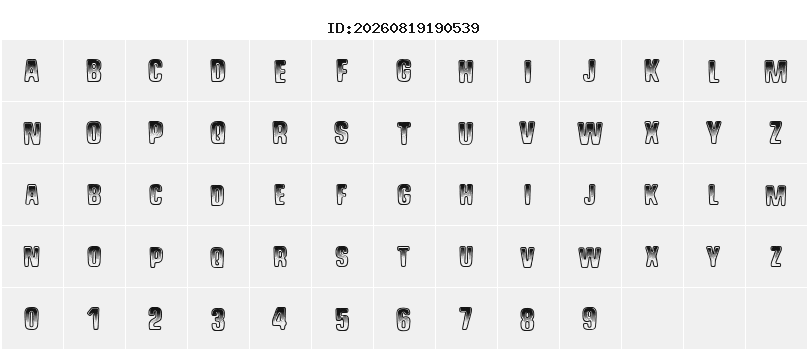
Shock Shimmy Preview
• Font Name: Shock Shimmy
• Font ID: S.JohnRoss: Shock Shimmy: 2011
• Full Font Name: Shock Shimmy
• PostScript Name: ShockShimmy
• Designer: S. John Ross
• Manufacturer: S. John Ross
About Shock Shimmy.ttf
Shock Shimmy.ttf is a modern, elegant sans-serif font designed for ultimate readability and visual harmony. Perfect for branding, headlines, web design, and print materials.